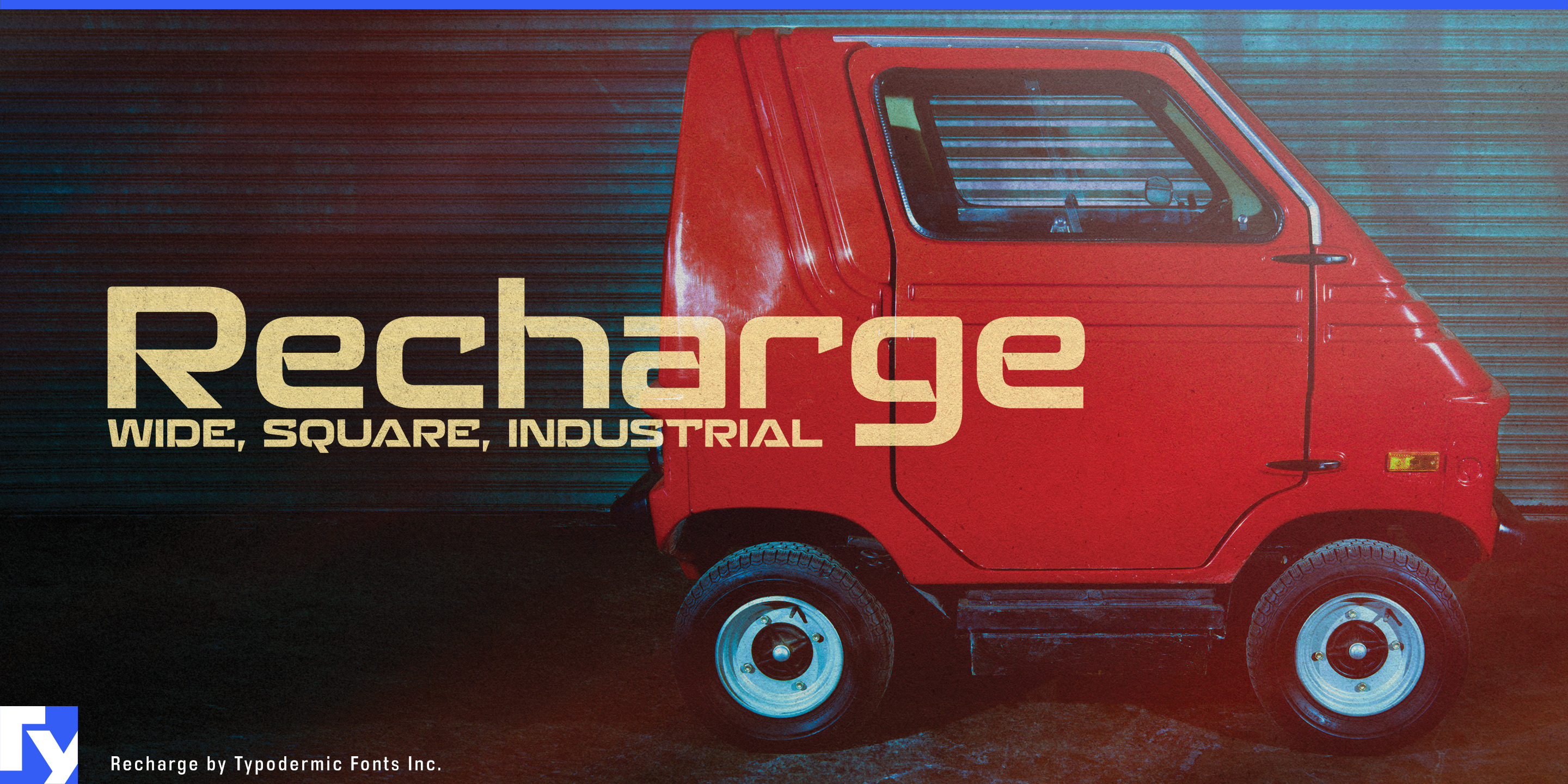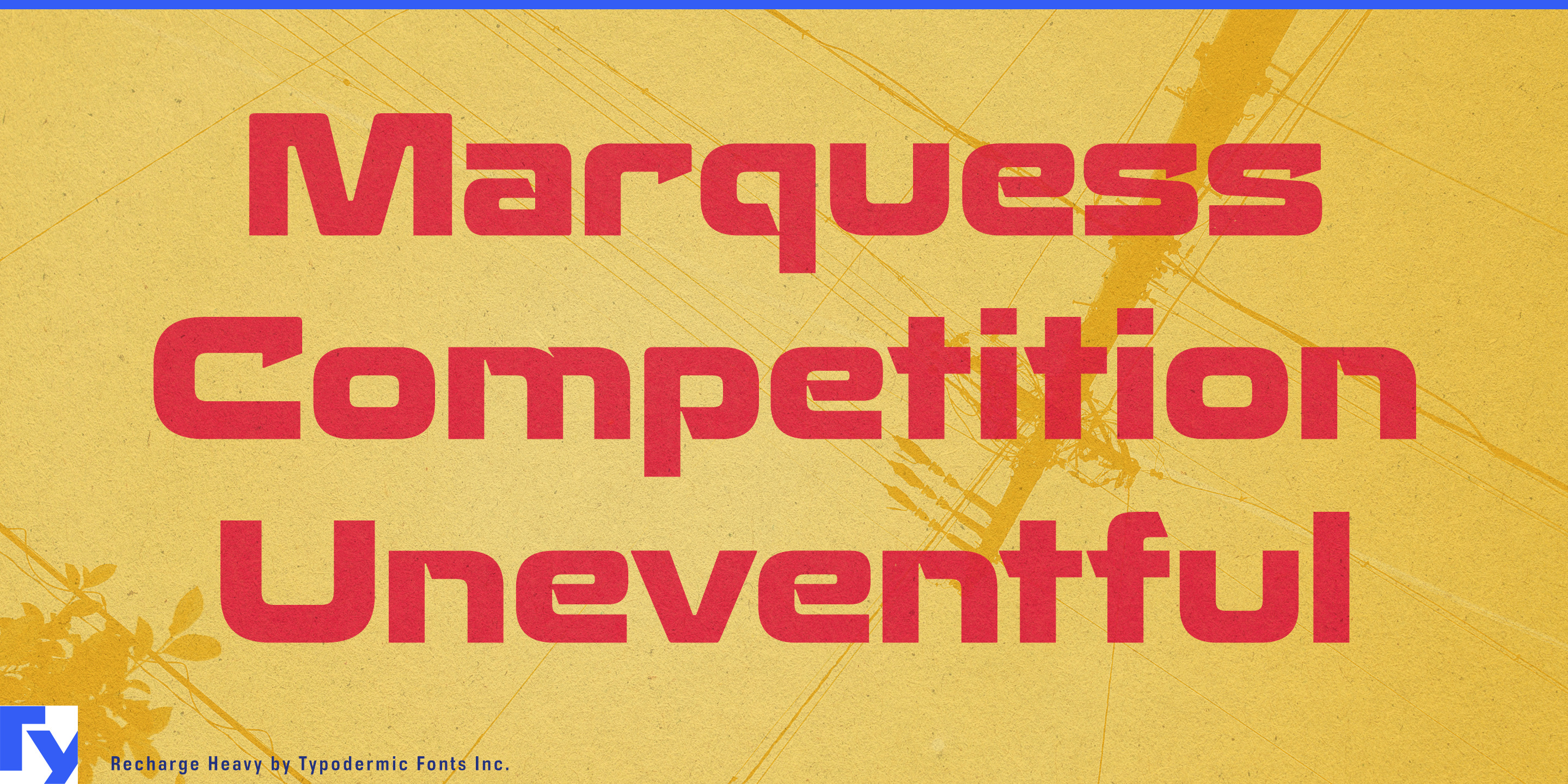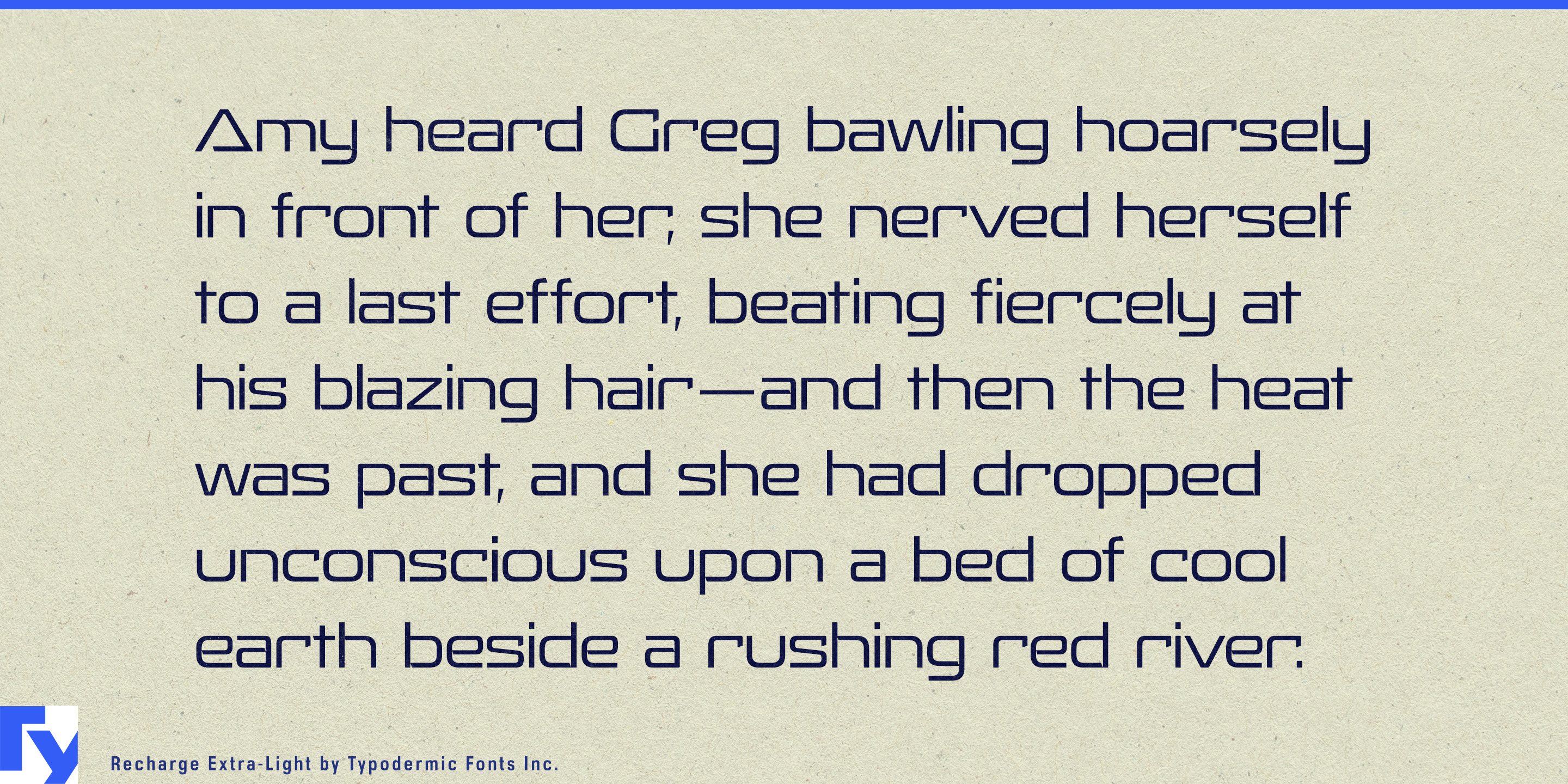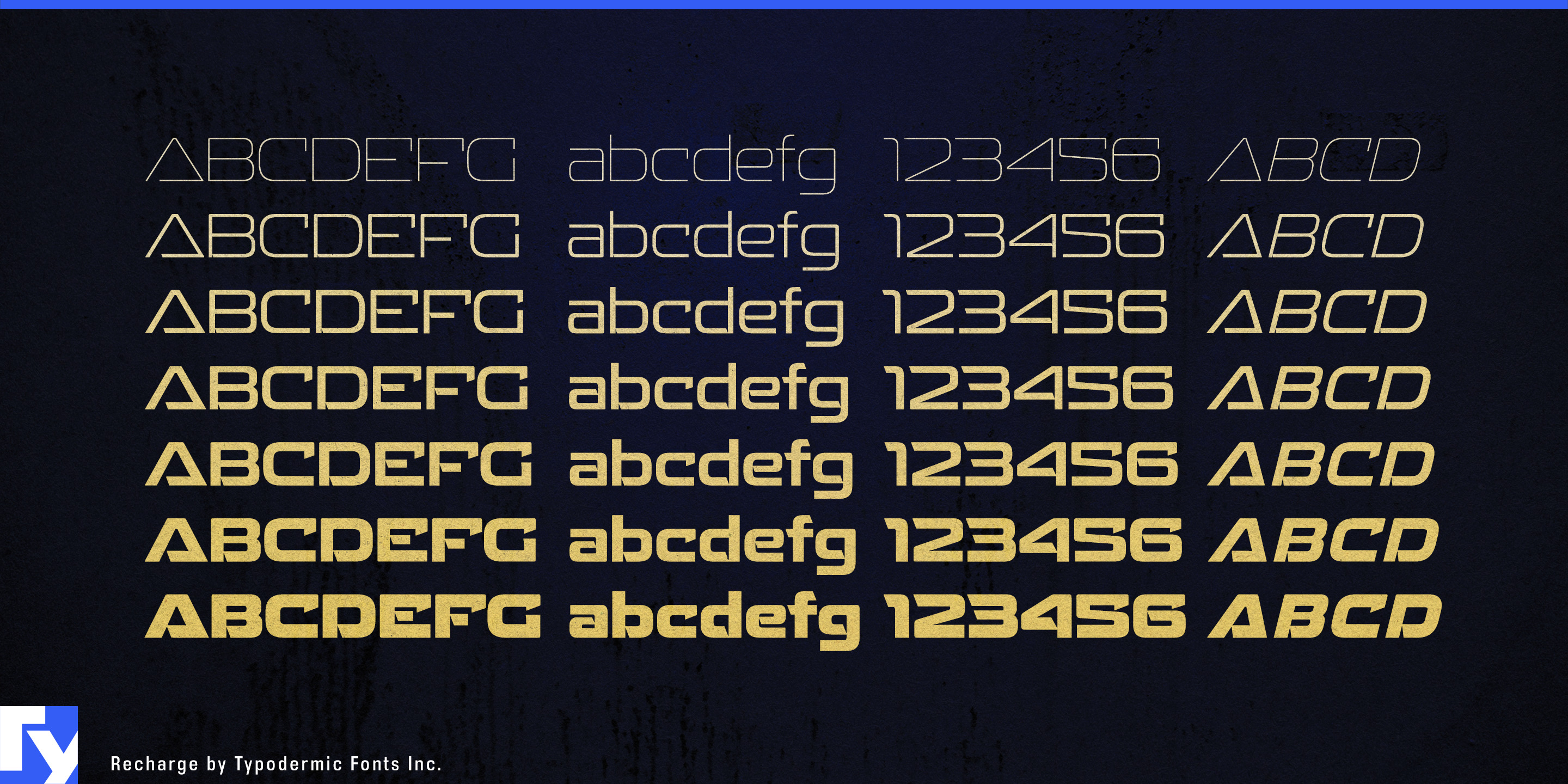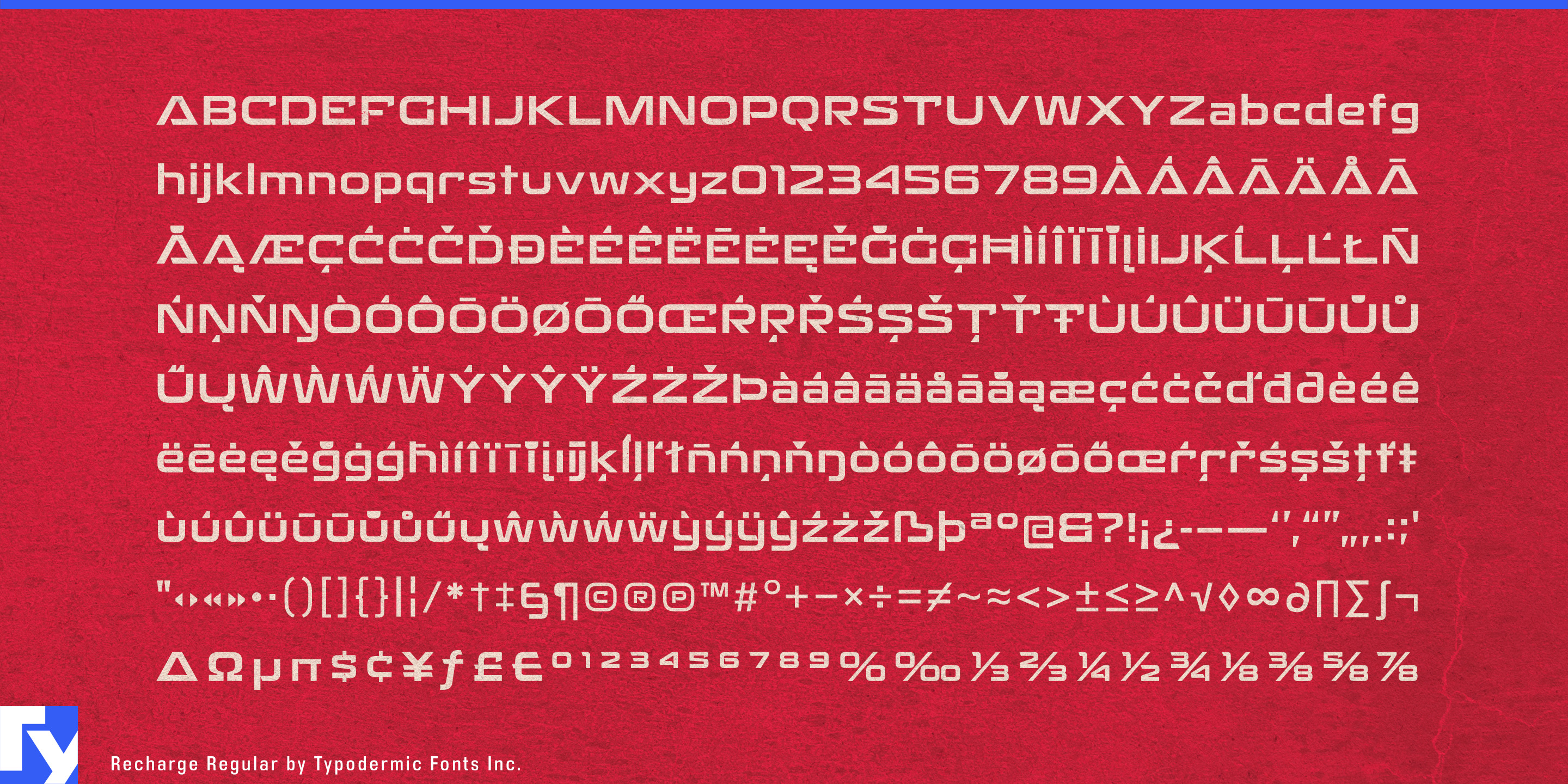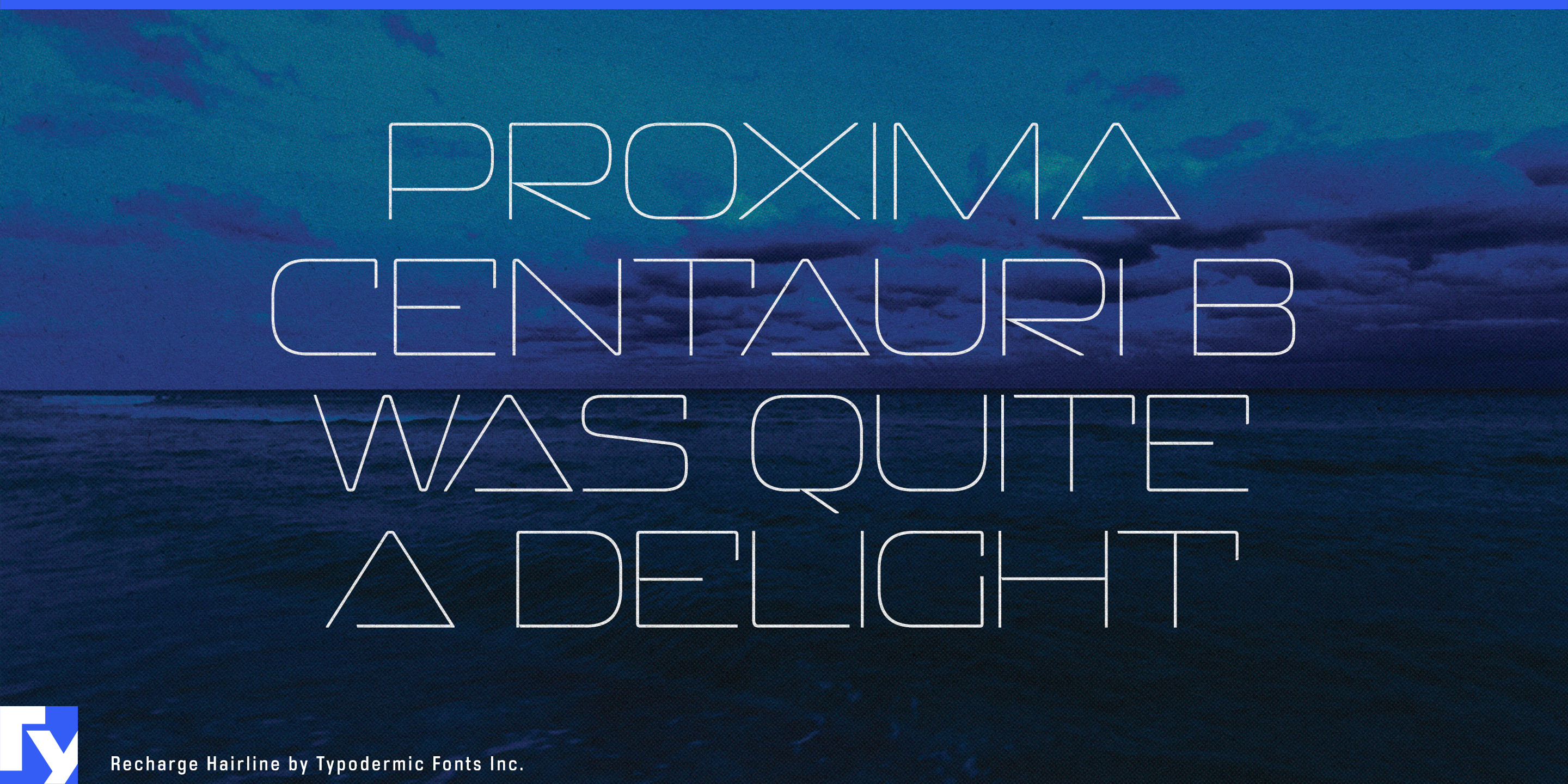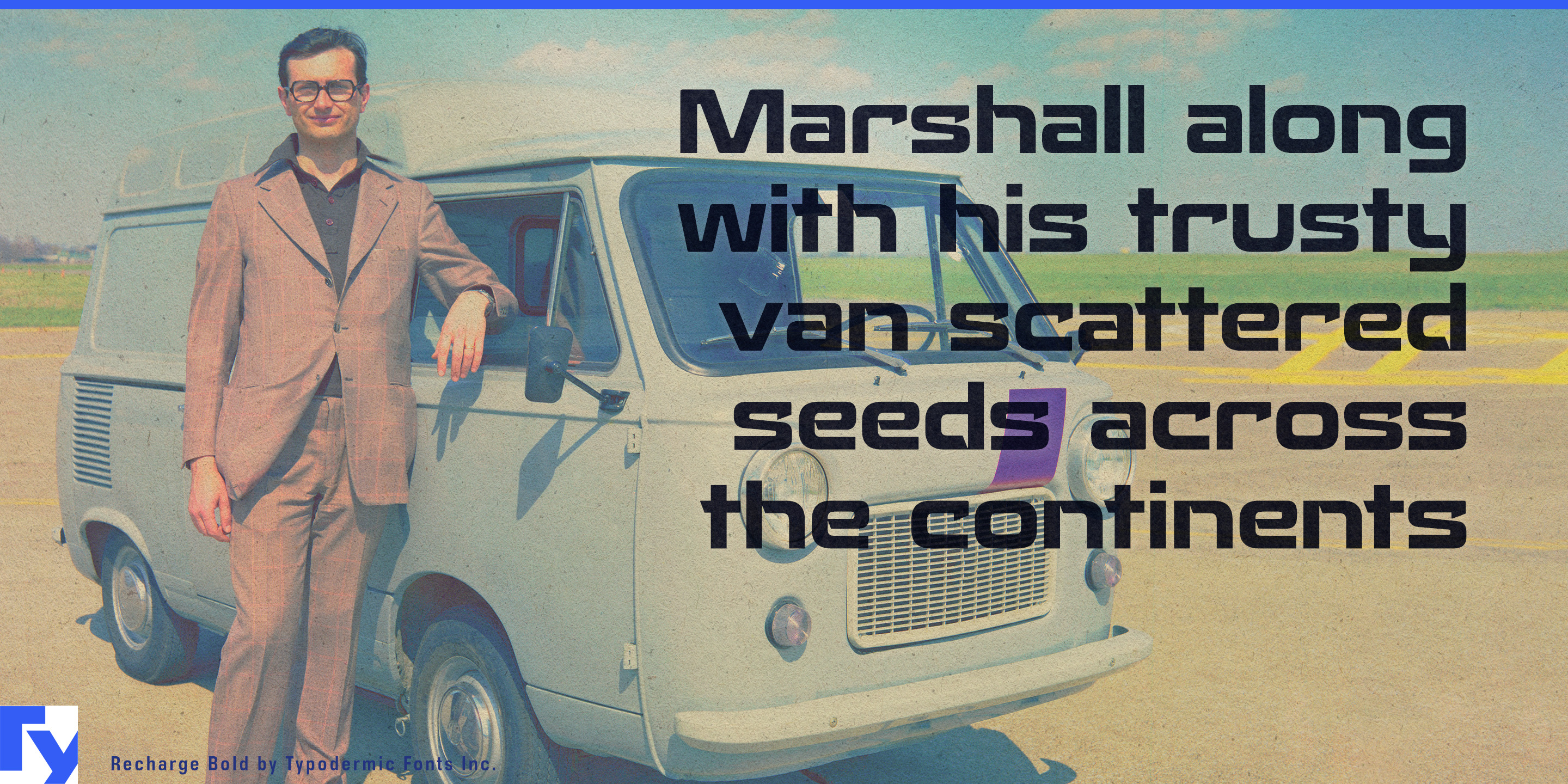
Recharge
Recharge is a wide, square sans typeface built with the precision of an engineered component and the force of industrial signage. Its broad letterforms and distinctive angled stroke terminals project strength and modernity while maintaining a clarity that works well beyond typical techno display settings.
With seven weights from airy Hairline to commanding Heavy—each with a matching italic—Recharge adapts to a surprising range of design demands. The lighter styles bring an elegant, high-tech feel to product packaging, UI headings, or pharmaceutical branding where precision and trust matter. The heavier styles deliver the visual punch for sports branding, automotive ads, esports titles, and fitness campaigns that demand energy and impact.
Its versatility extends into architectural wayfinding, industrial safety signage, science-fiction film titles, robotics trade shows, high-speed transport graphics, and even luxury electronics packaging. The consistent geometry across the family ensures visual cohesion whether you’re creating a minimal, futuristic app interface or a bold, all-caps logotype for a competitive sports team.
Recharge supports a wide range of Latin-based languages, making it a dependable choice for international campaigns in tech, healthcare, lifestyle, and entertainment. It’s a typeface that can broadcast authority, convey precision, and still deliver a polished, modern finish—ready to meet the demands of brands that operate in high-performance environments.